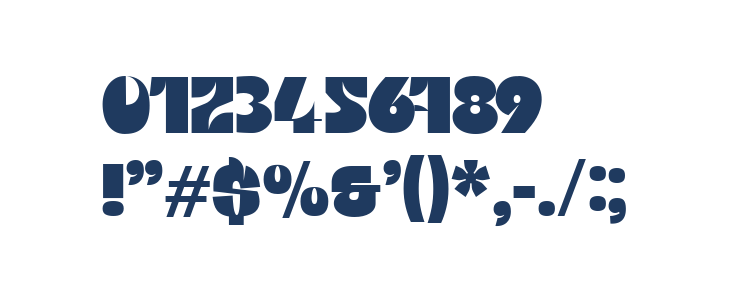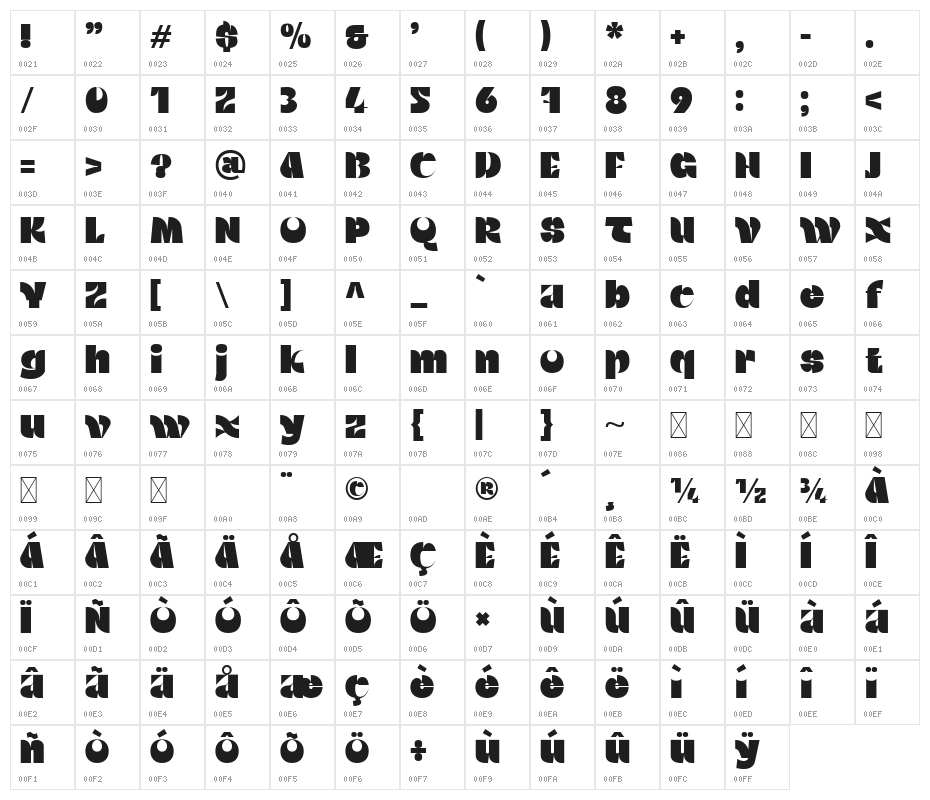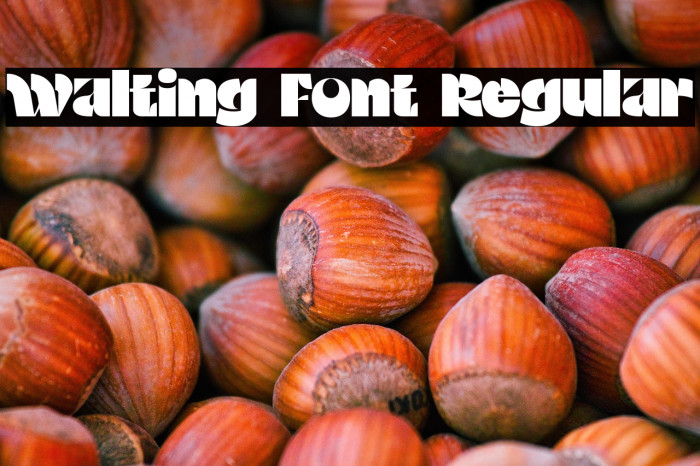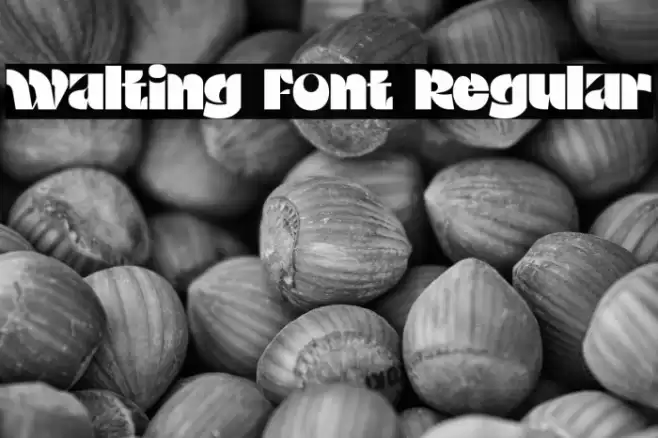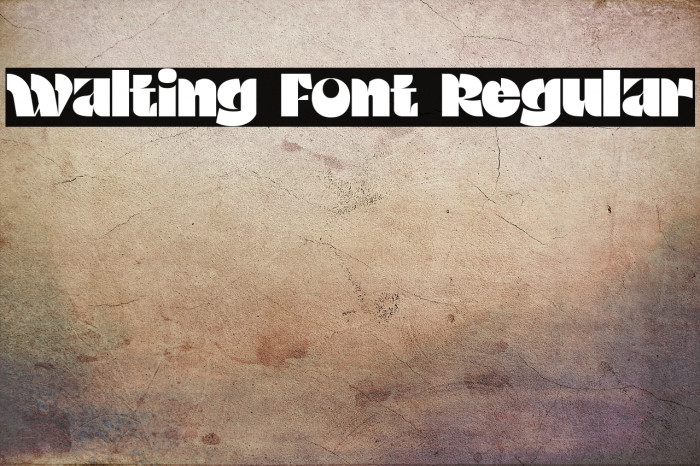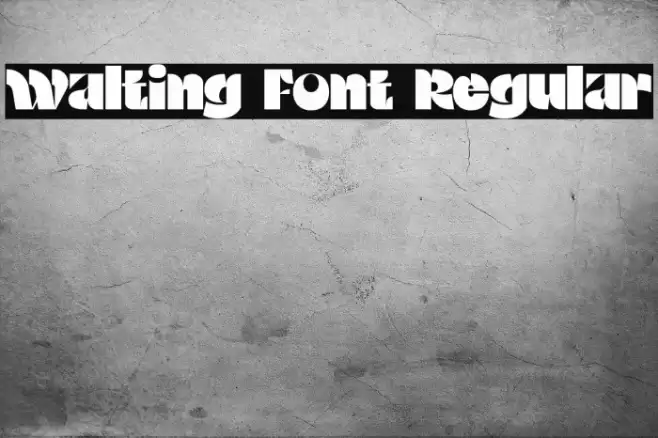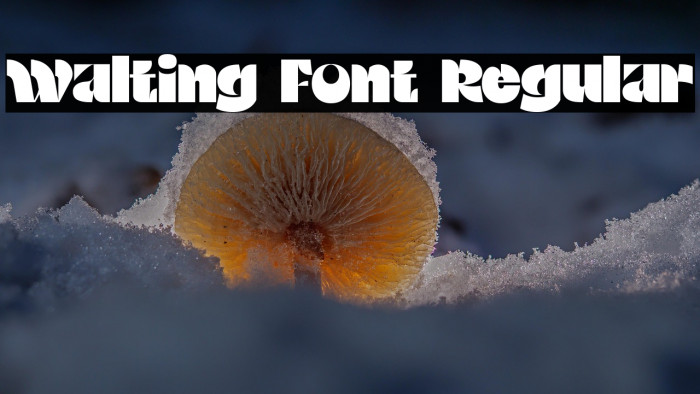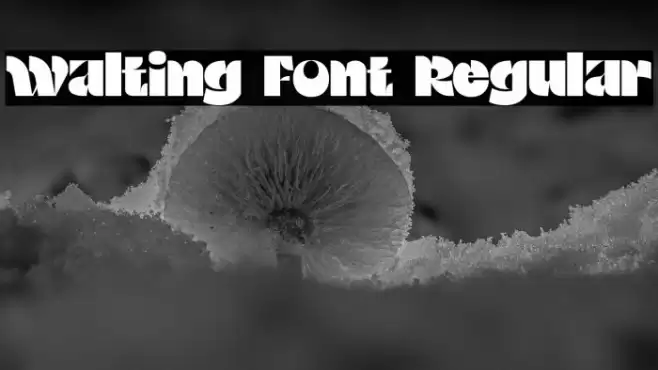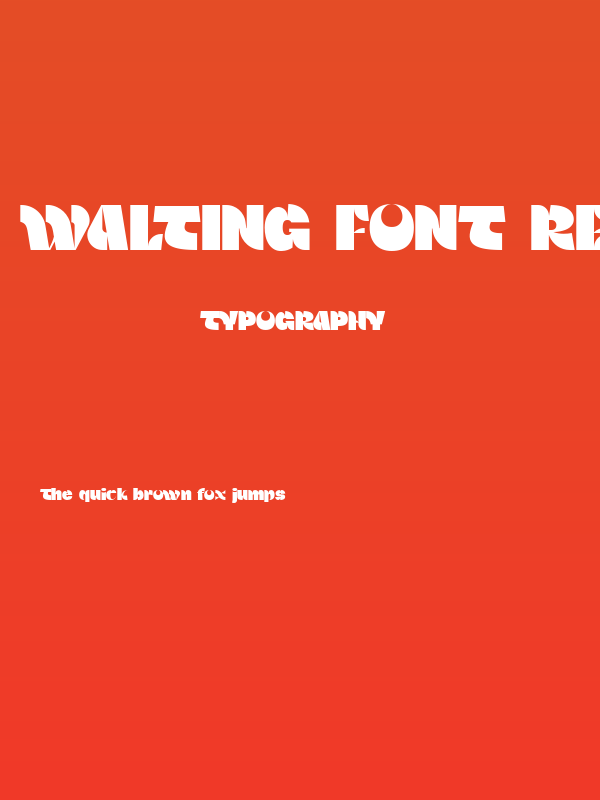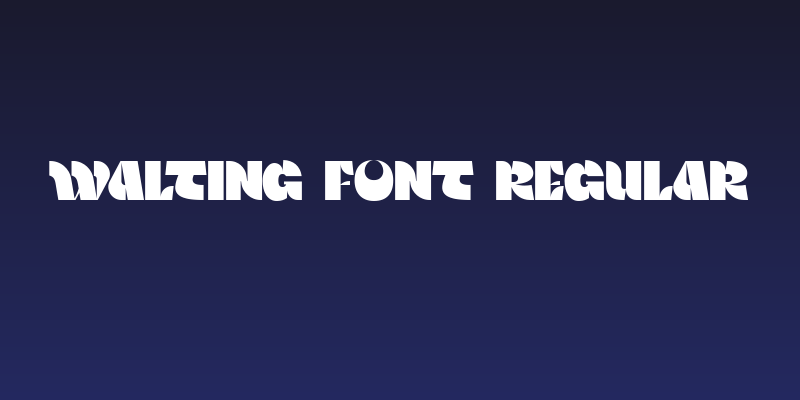
Walting Font Regular Font
Walting Font Regular Description
This font features a bold and striking design with a modern, geometric flair. The characters are crafted with thick, solid strokes and unique cut-out elements that create a sense of movement and energy. The uppercase and lowercase letters maintain a consistent style, with rounded edges and a playful, artistic touch. The numbers and special characters follow the same bold aesthetic, making them stand out prominently. This font is perfect for making a statement and capturing attention with its distinctive and creative appearance.
| Proposed Projects | Ideal for branding, poster design, album covers, and any project needing a bold, artistic touch. |